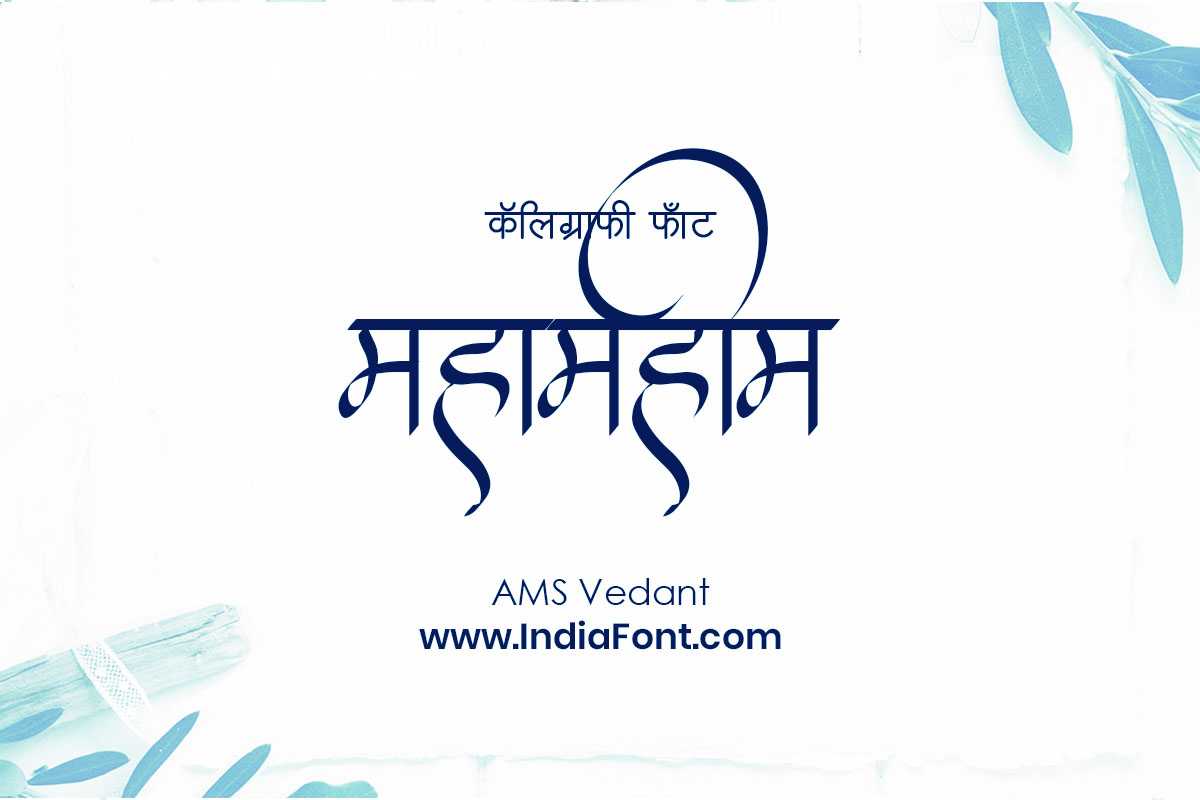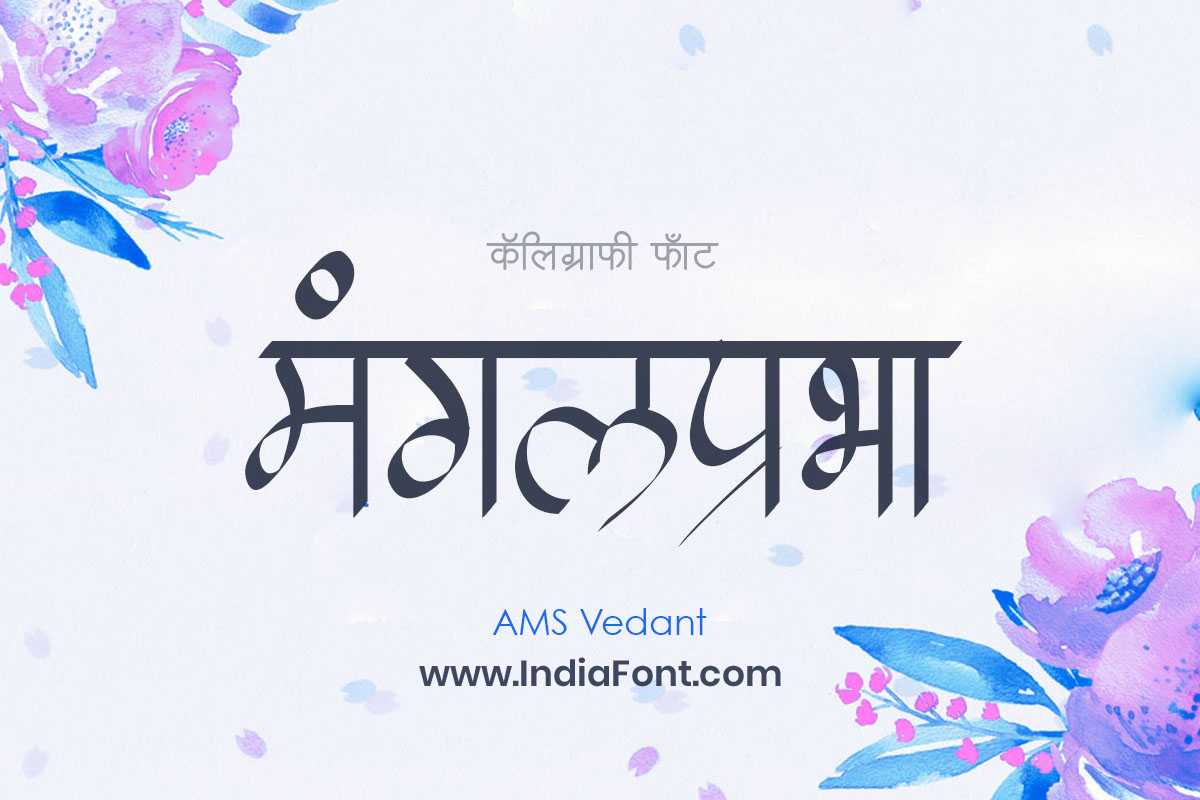
AMS Vedant
Enhance the readability and professionalism of your publications with AMS Vedant, a font designed for clear communication. This publication font is perfect for designers searching for stylish Hindi fonts, fonts suitable for magazines or books, or fonts that offer a unique font style download.
AMS Vedant Design Inspiration
About AMS Vedant Font
Enhance the readability and professionalism of your publications with AMS Vedant, a font designed for clear communication. This publication font is perfect for designers searching for stylish Hindi fonts, fonts suitable for magazines or books, or fonts that offer a unique font style download. This publication font combines elegance with functionality, making it perfect for various design applications.
AMS Vedant is a professionally crafted publication typeface that brings clarity and style to your projects. Designed with attention to detail, it supports hindi and marathi characters flawlessly.
Whether you're working on invitations, social-media-graphics, festival-event-materials, or other creative projects, AMS Vedant delivers consistent performance across both digital and print media. This carefully designed typeface ensures readability and visual appeal in all your design work.
Why Choose AMS Vedant?
AMS Vedant excels in various design scenarios. Here are the most suitable applications:
About AMS Vedant Typography Style
AMS Vedant is a professionally crafted publication font that exemplifies modern Hindi typography design. This free font is perfect for designers seeking versatile design applications.
Available in 1 weight and supporting hindi, marathi scripts, AMS Vedant offers exceptional versatility for both digital and print media. Whether you're working on invitations, social-media-graphics, festival-event-materials, this carefully designed typeface ensures consistent quality and professional results across all your typography projects.